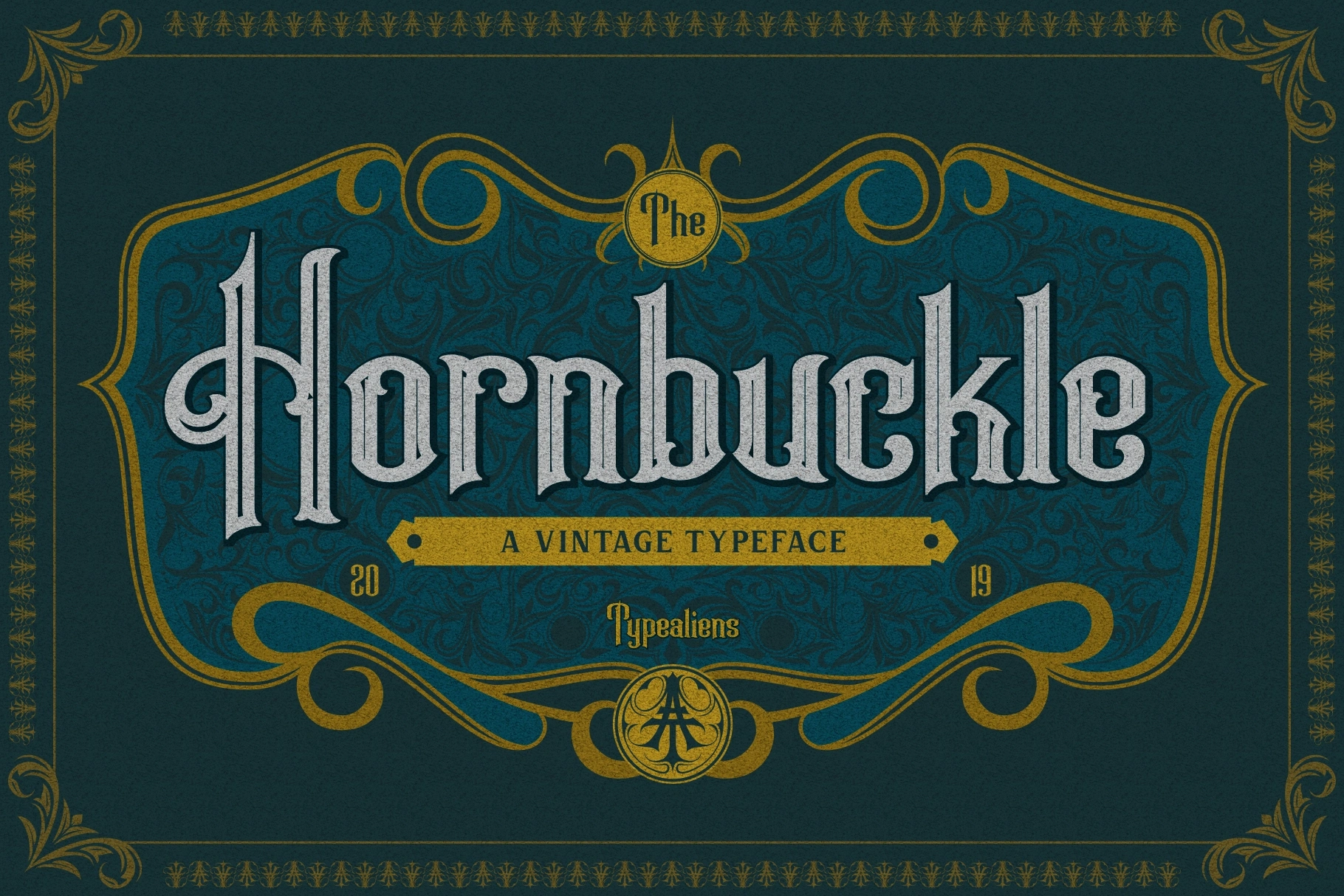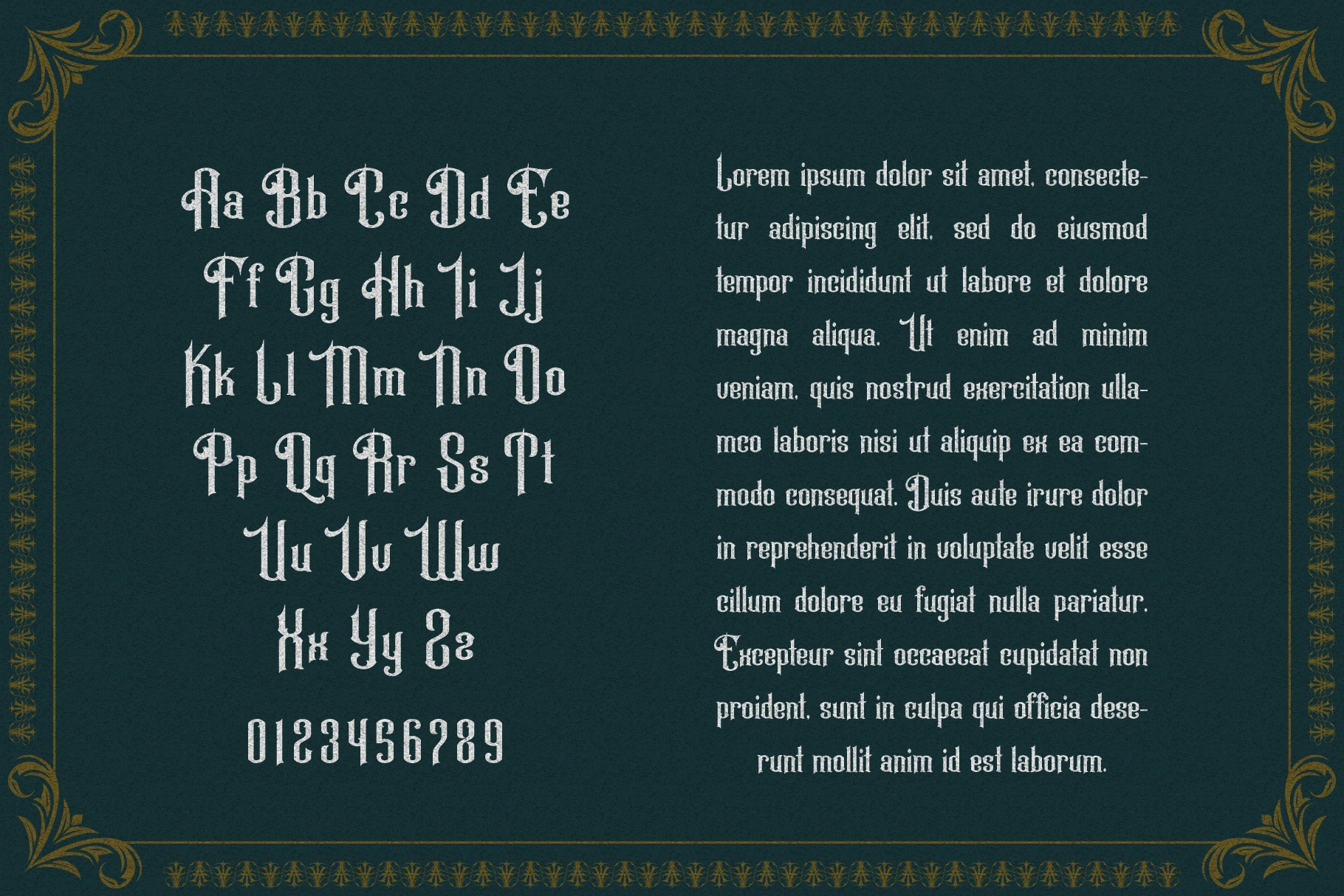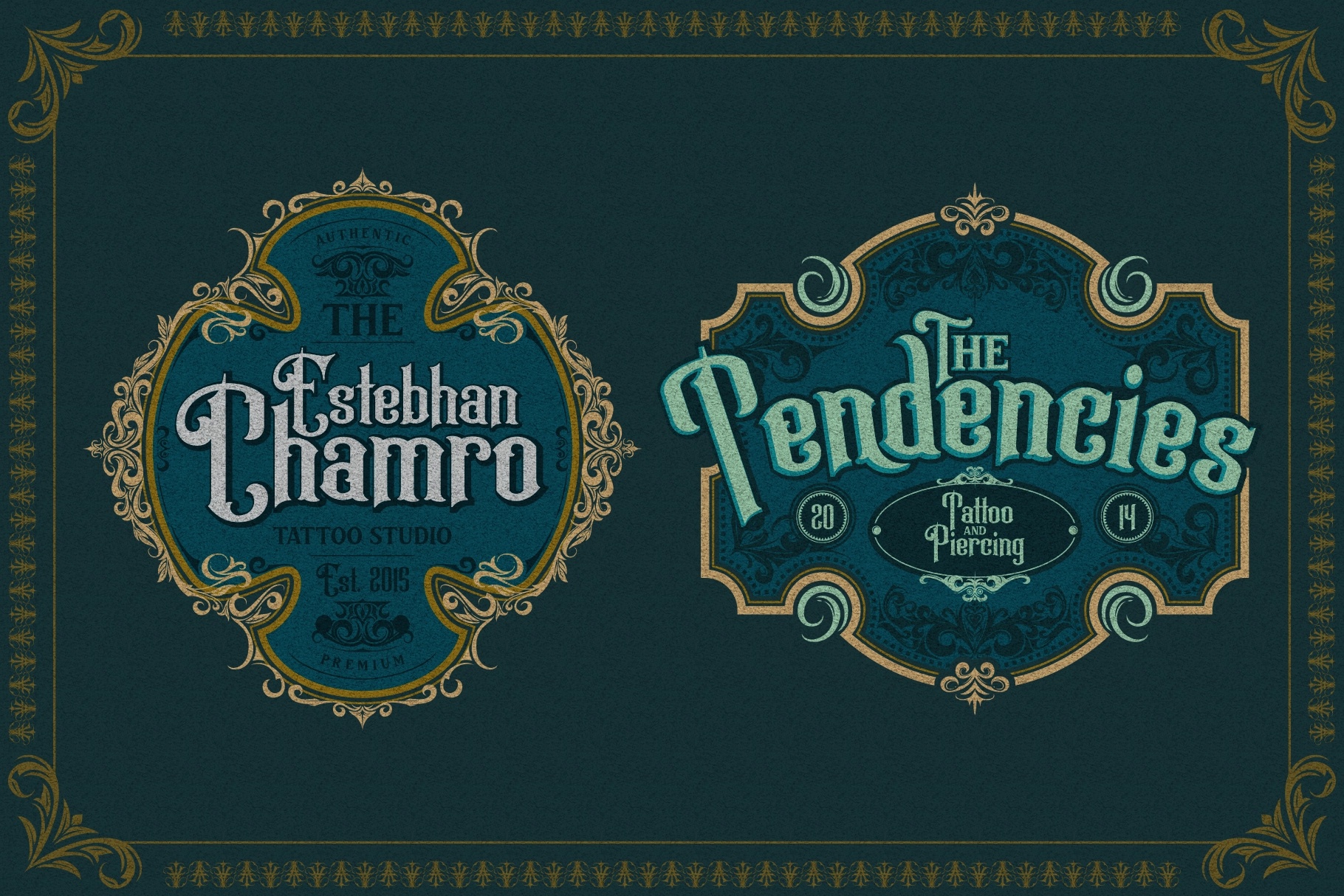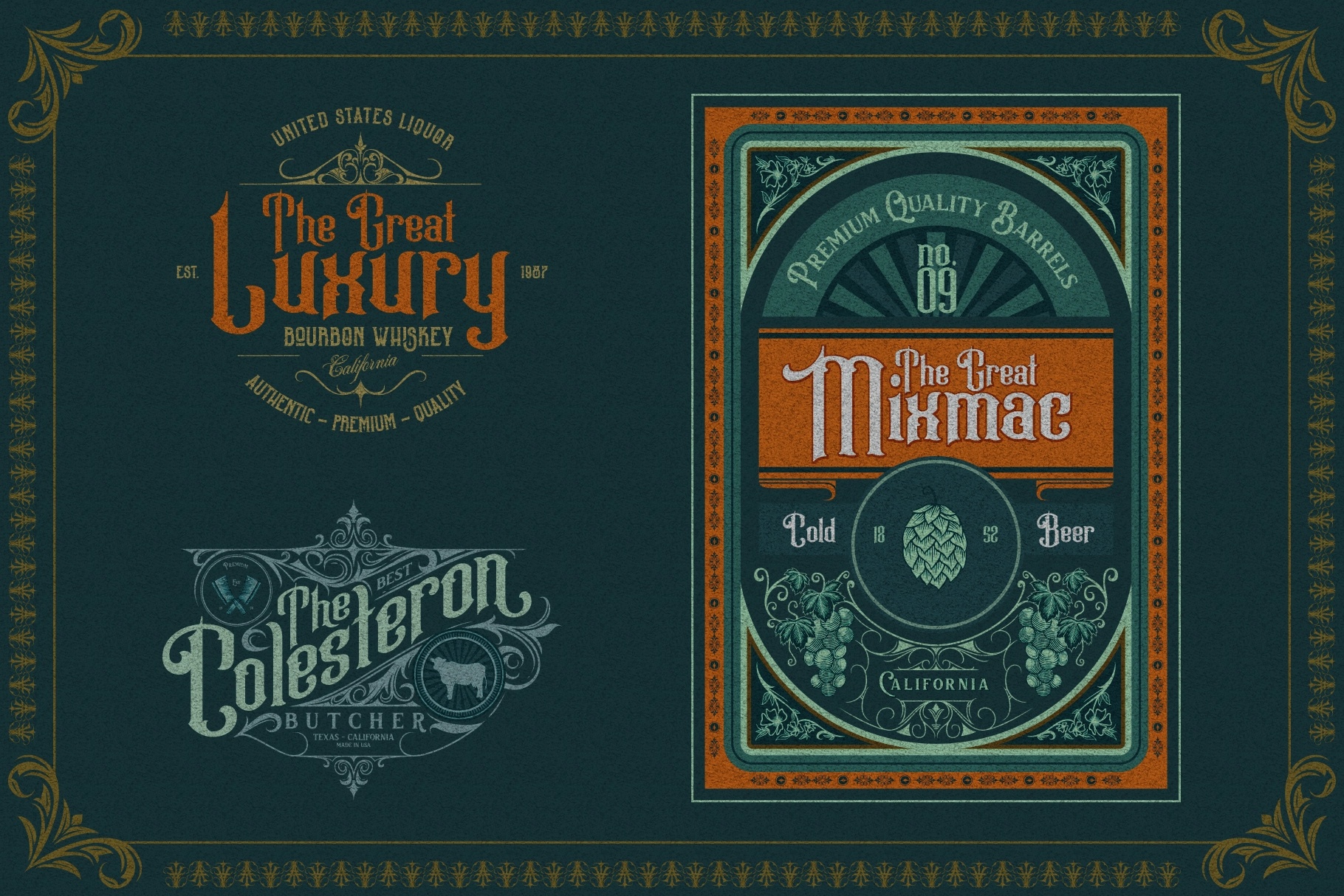
Hornbuckle - Vintage Blackletter Font
This blackletter typeface has a Victorian character, ornate vertical strokes, and carved letter details that suit heritage-driven design. Its decorative forms pair naturally with Art Nouveau borders, engraved ornaments, old labels, and dramatic display typography.
Hornbuckle is made for vintage logos, liquor labels, brewery branding, badge designs, packaging, poster titles, restaurant identities, boutique signage, book covers, event invitations, tattoo-inspired graphics, product seals, and more. It brings that old-world confidence designers usually chase with twelve border packs and a minor existential crisis.
• Numerals
• Decorative letterforms
• Vector Extras